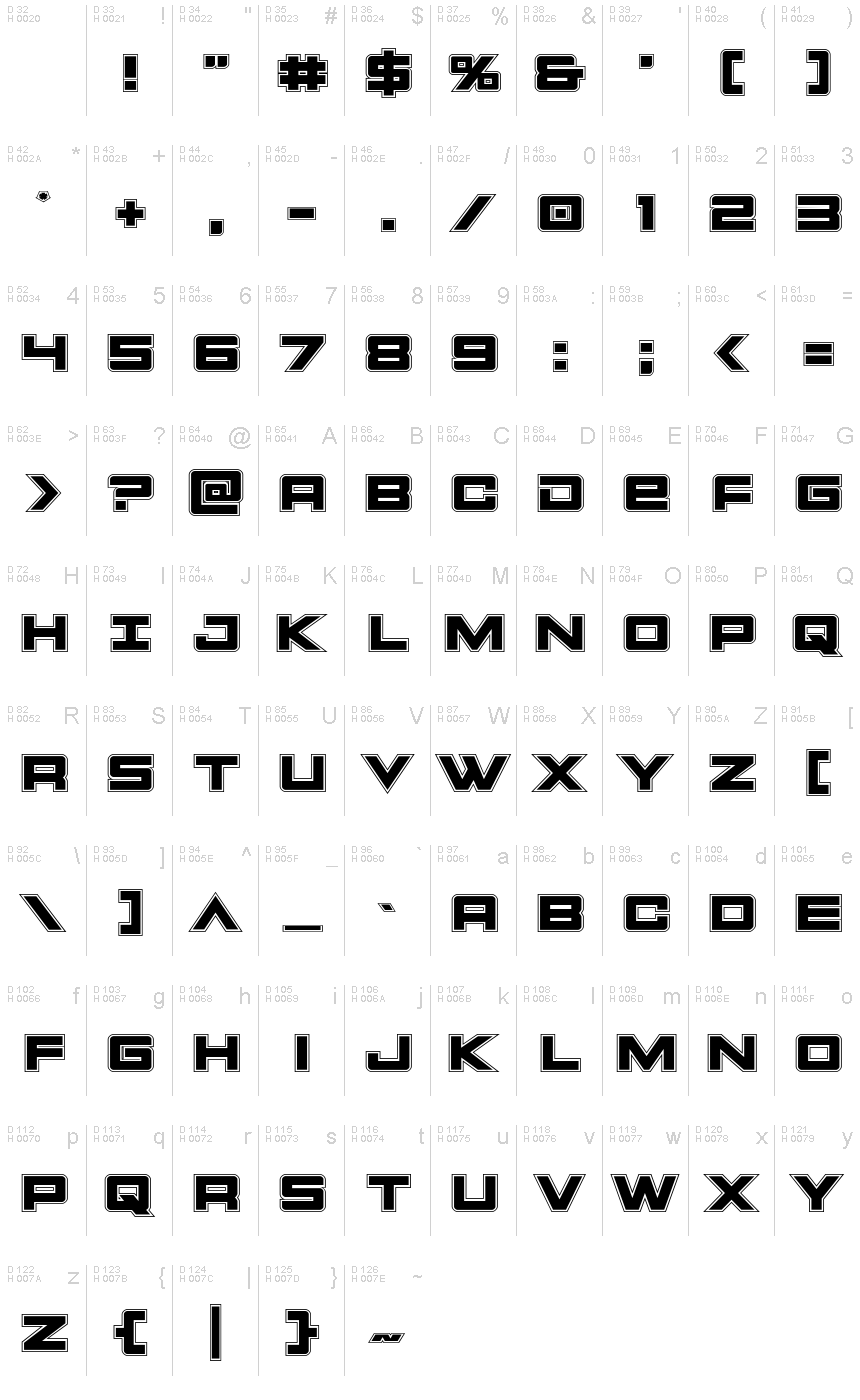
Montroc is a bold, futuristic display font that captivates with its expansive, geometric letterforms. Designed by Daniel Zadorozny of Iconian Fonts, this font exudes a sense of technological prowess and modern elegance. The strong, angular lines and distinctive letter shapes lend a striking visual presence, making Montroc an ideal choice for headlines, branding, and high-impact design projects. Its expanded width further enhances its commanding aesthetic, lending an impactful, eye-catching quality to any typographic composition.
This font's versatility allows it to seamlessly integrate into a wide range of design contexts, from sleek, futuristic interfaces to dynamic event promotions and beyond. Montroc's bold, futuristic style makes it a compelling option for designers seeking to convey a sense of innovation, power, and modernity.
Montroc Academy